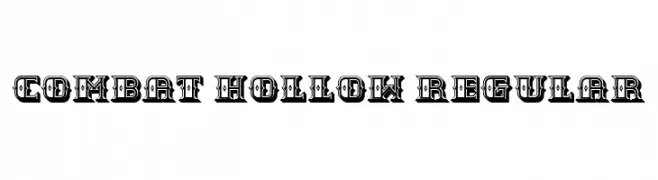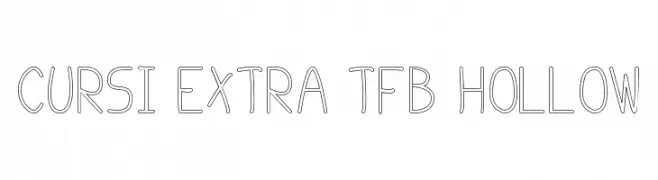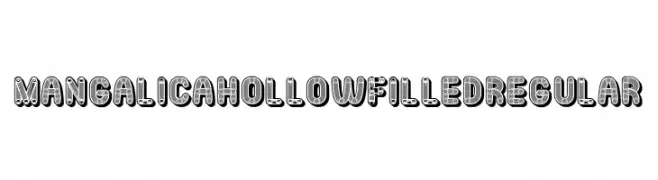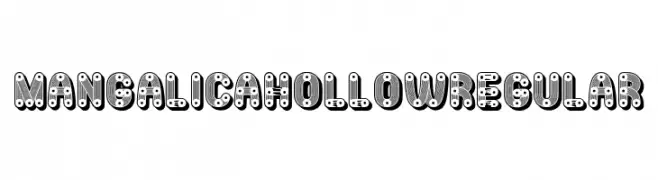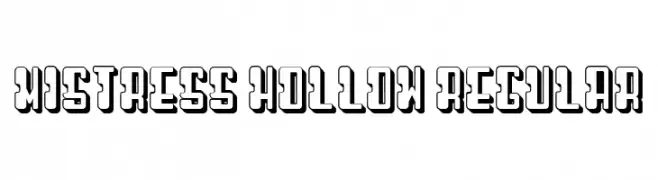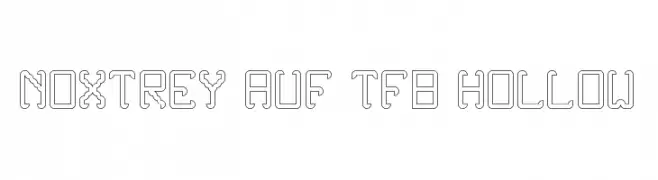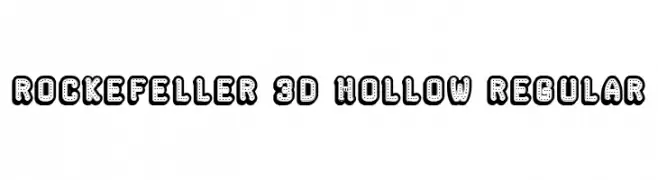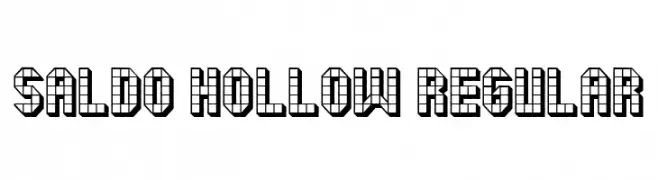
A bold, 3D hollow font with a playful and striking design.
A bold, 3D hollow font with dotted interiors and thick outlines.
A bold, geometric font with hollow interiors and thick outlines.
A bold, decorative font with hollow interiors filled with intricate patterns.
A bold, decorative font with hollow interiors and intricate patterns.
A geometric, hollow font with a grid-like, three-dimensional design.
A bold, hollow, and playful font with a 3D effect and consistent geometric style.
A hollow, geometric font with a modern, tech-inspired design.
A playful, hollow, hand-drawn style font with rounded, outlined characters.
A bold, decorative font with a hollow interior and geometric elements.